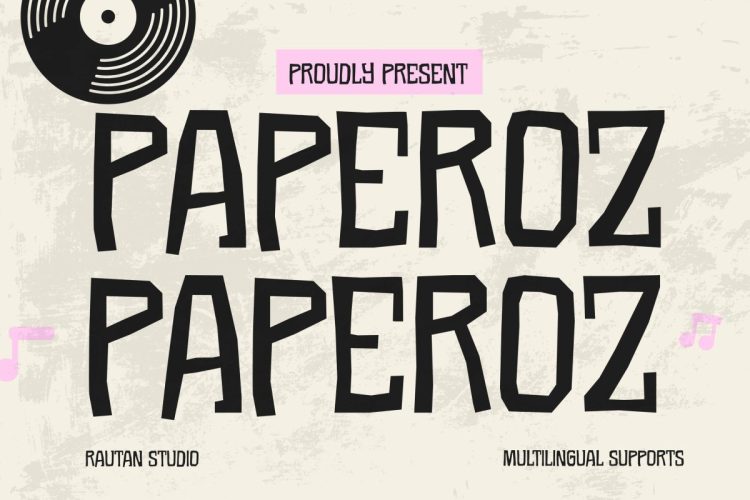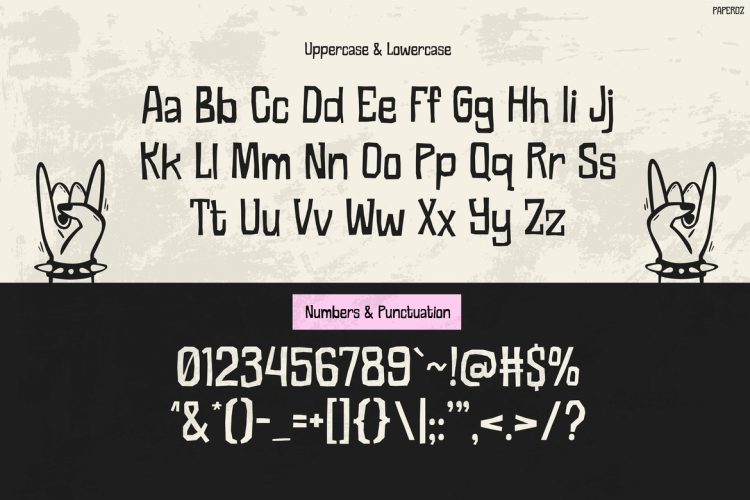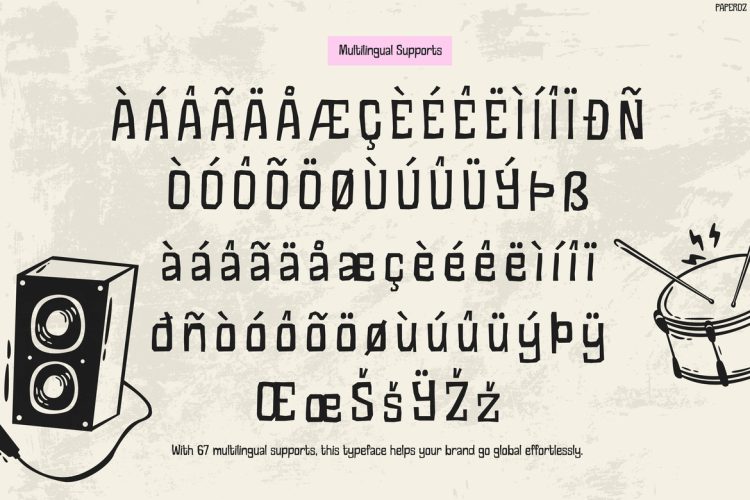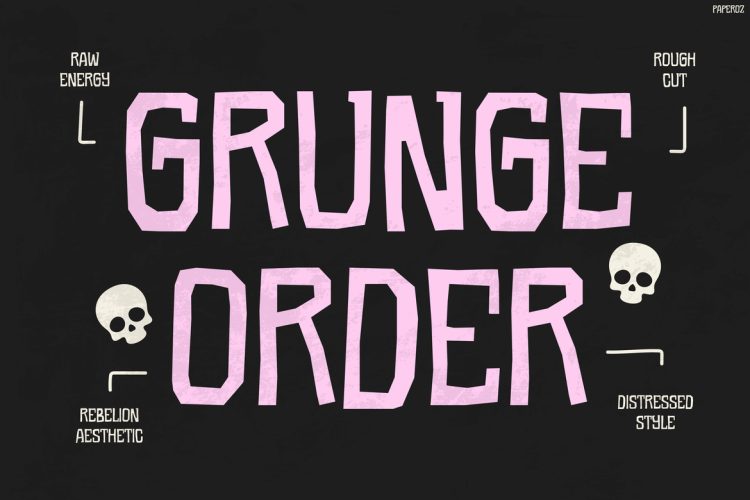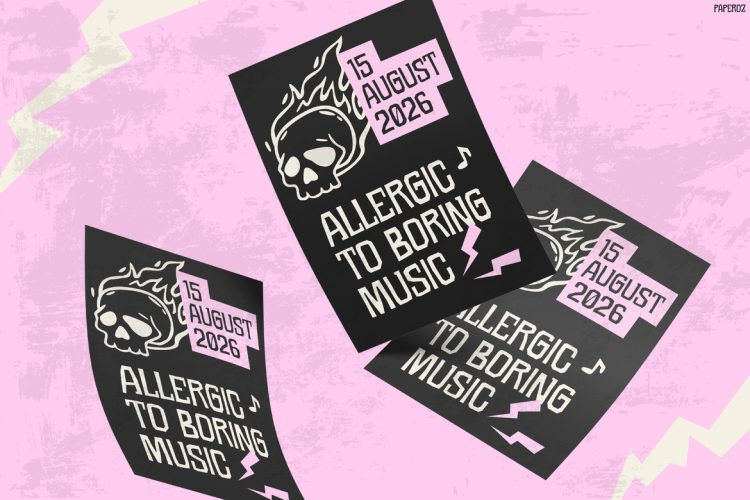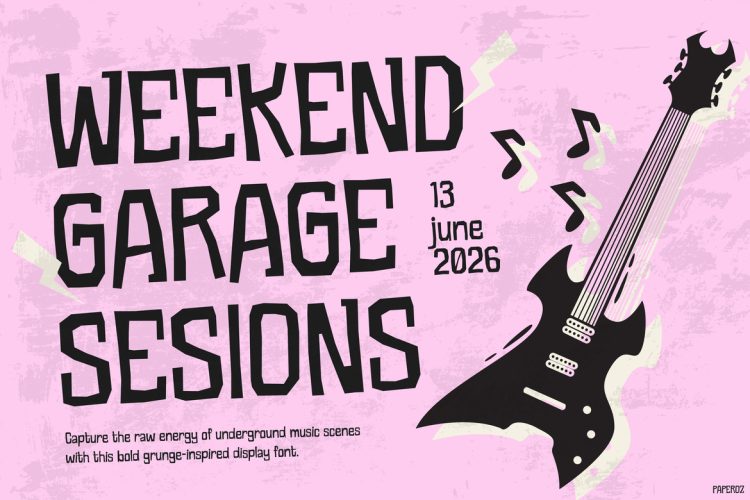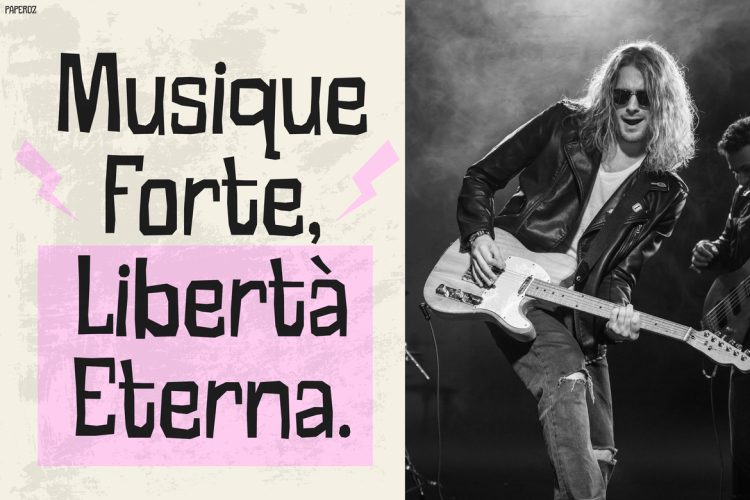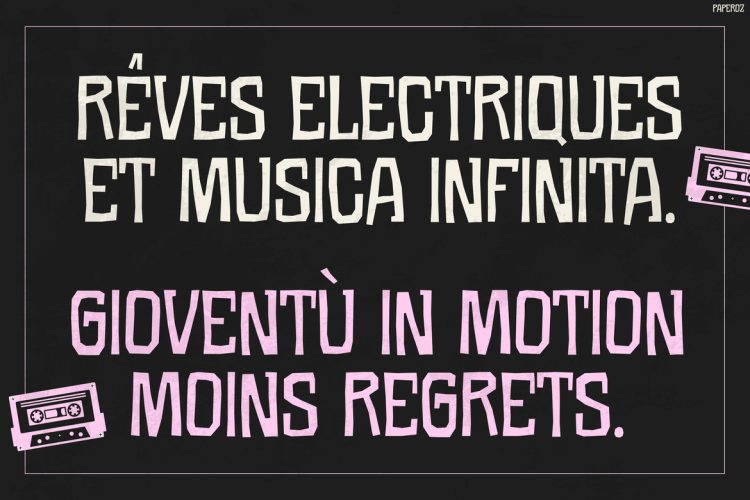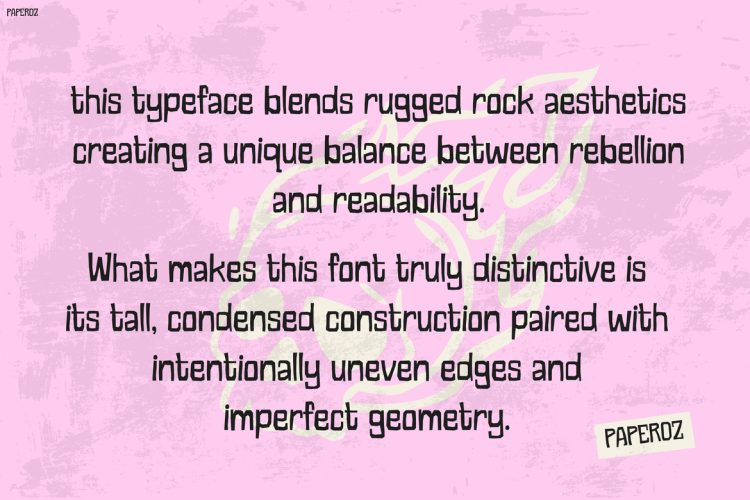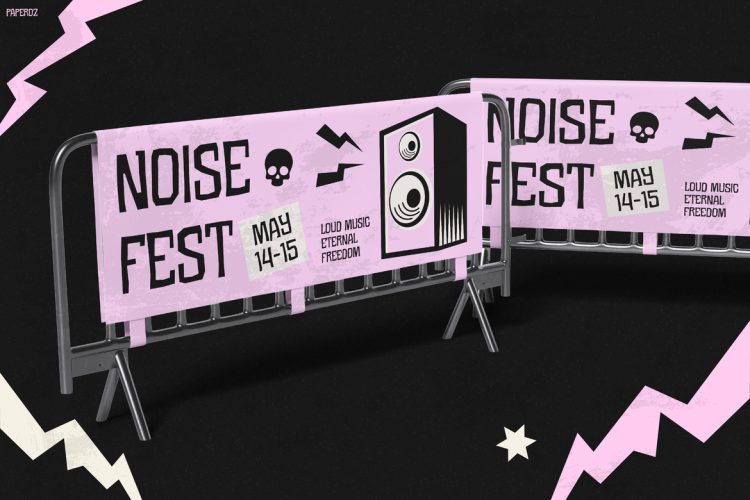
Paperoz โ Raw, Loud & Rebellious Typography for Music Culture
Music Font Paperoz is a bold grunge display font designed to capture the raw energy of underground music, rock concerts, and rebellious creative movements. Not only does it feature rough handcrafted letterforms, but it also combines imperfect shapes and distressed details that create an authentic punk-inspired attitude. Moreover, its uneven geometry gives every word a unique and expressive character. In addition, Paperoz delivers a powerful visual impact while maintaining excellent readability. Furthermore, its edgy appearance makes posters, album artwork, and promotional materials feel more aggressive and memorable. As a result, your designs instantly communicate freedom, noise, and creative expression. Meanwhile, its handcrafted imperfections add a human touch that makes every composition feel genuine. Additionally, with support for 67 languages, Paperoz helps artists and brands reach audiences across the globe. Therefore, it is the perfect choice for modern music and alternative culture projects.
Music Font Perfect For
Paperoz is created for projects that demand a bold, loud, and unconventional identity. Whether you are designing band posters, album covers, music festival banners, concert flyers, merchandise, streetwear branding, or social media campaigns, this font brings an unforgettable rebellious vibe. Likewise, its grunge aesthetic perfectly matches rock, punk, indie, metal, and underground themes. Furthermore, its rough personality creates an authentic DIY feeling. Consequently, every design gains stronger emotion and visual impact.
Who Can Use It?
- Music Bands & Independent Artists
- Concert & Festival Organizers
- Album Cover Designers
- Streetwear Brands
- Creative Agencies
- Content Creators & Musicians
- Poster & Merchandise Designers